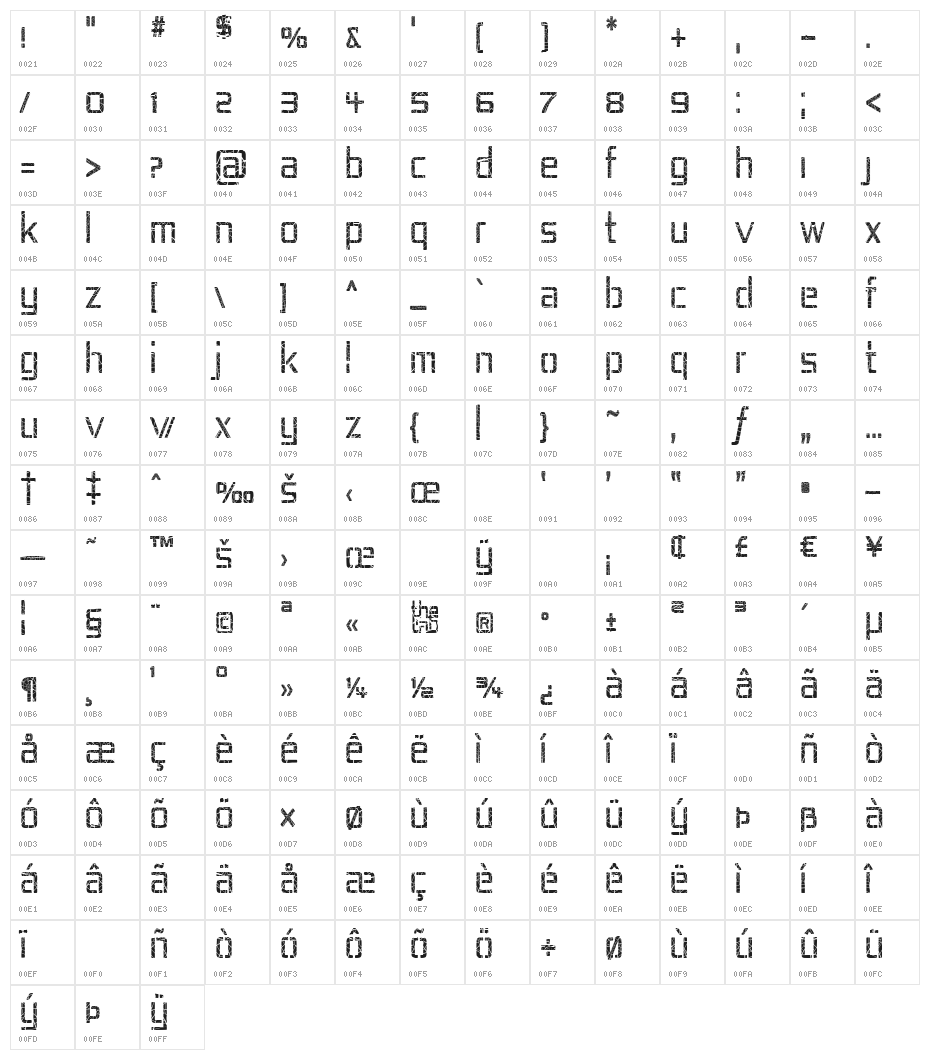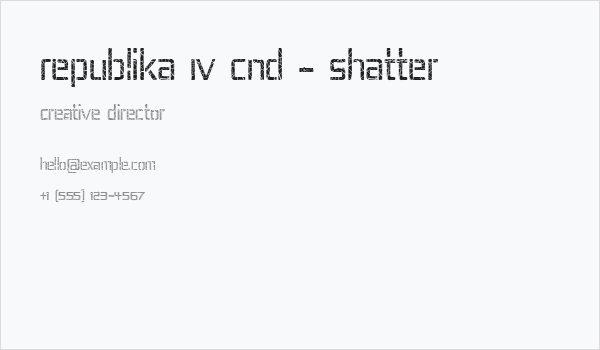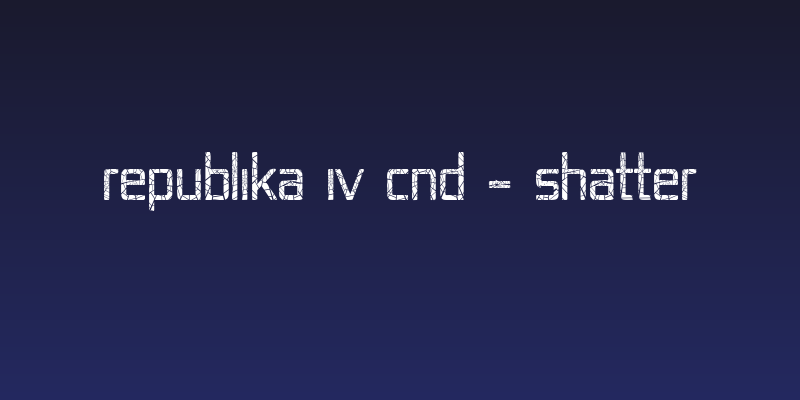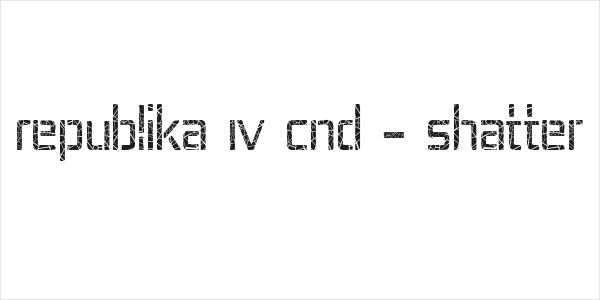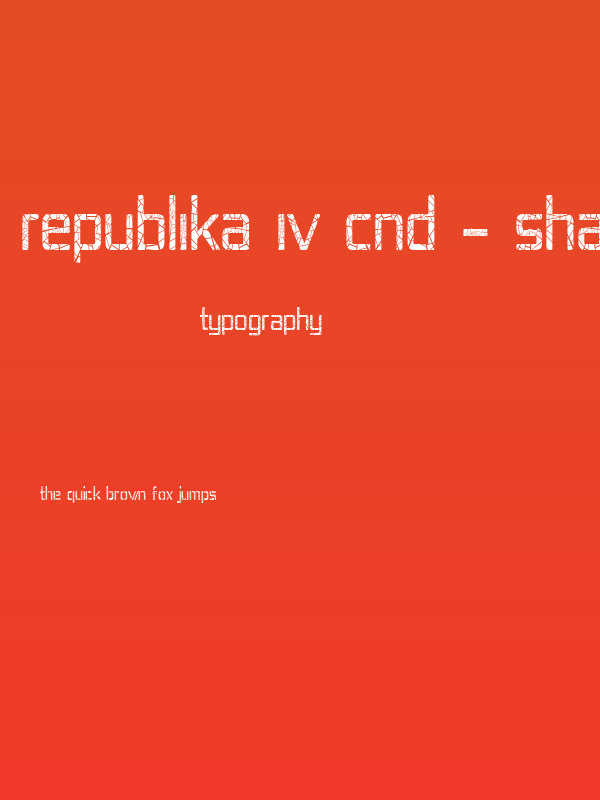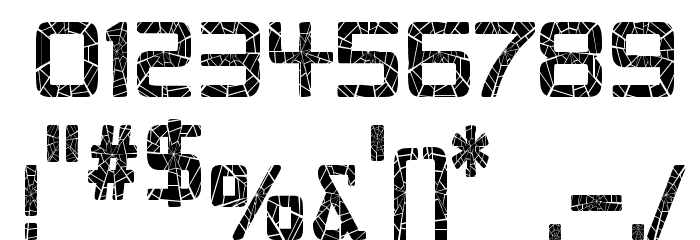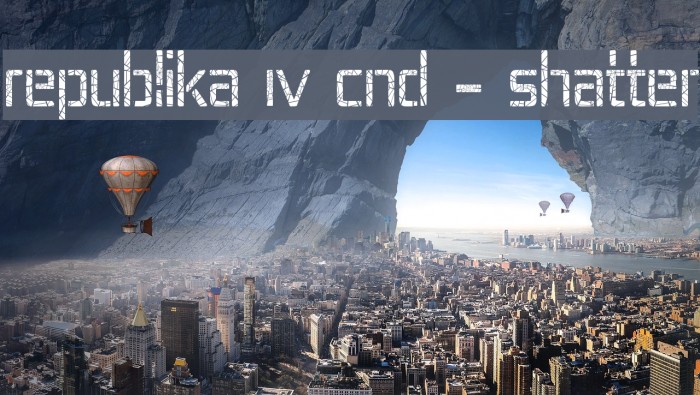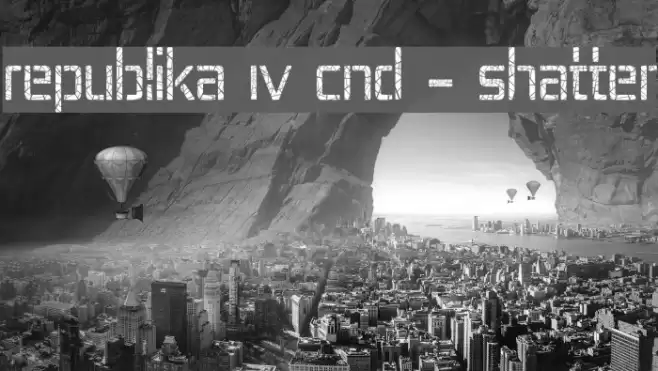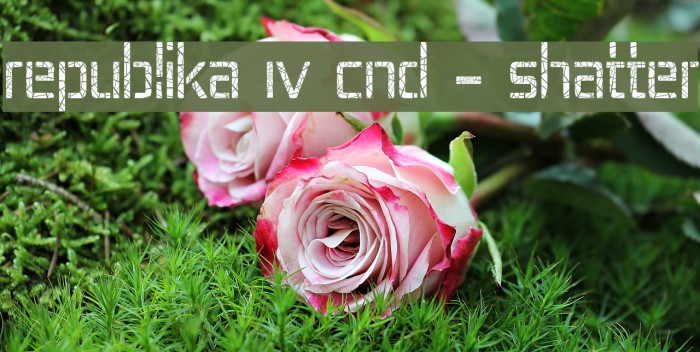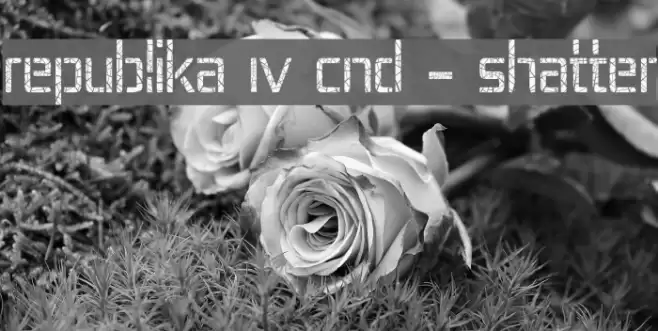
Republika IV Cnd - Shatter Font
Republika IV Cnd - Shatter Description
This font features a unique shattered glass effect, giving each character a fragmented and edgy appearance. The design is bold and eye-catching, with a modern and artistic flair. The uppercase and lowercase letters maintain a consistent style, while the numbers and special characters follow suit with the same broken pattern. This font is perfect for projects that require a striking and unconventional look, such as posters, album covers, or digital art. The fragmented style adds a sense of dynamism and movement, making it ideal for creative and contemporary designs.
| Proposed Projects | Ideal for posters, album covers, digital art, and creative projects requiring a striking look. |